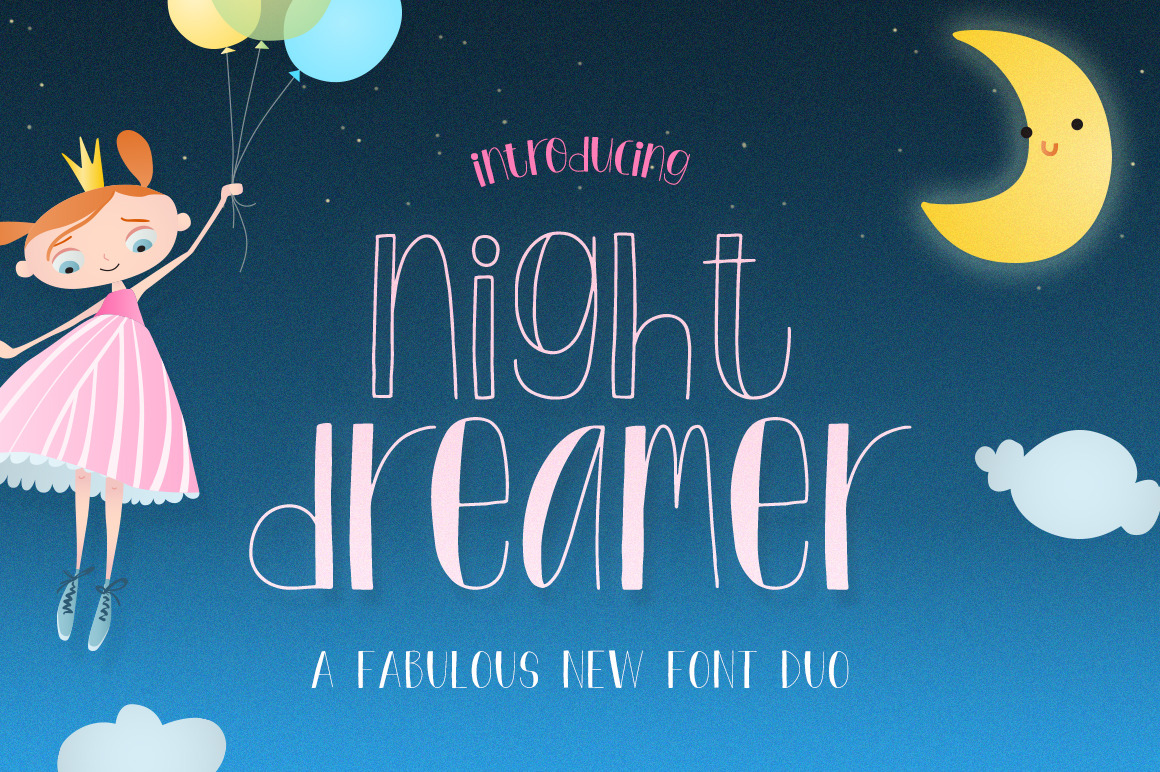
Night Dreamer Font Duo
Night Dreamer is a fabulous font duo that’s consists of a regular and a filled version. Cute, child-like but super legible.. what’s not to love! It pairs super well with scripts so try it out.